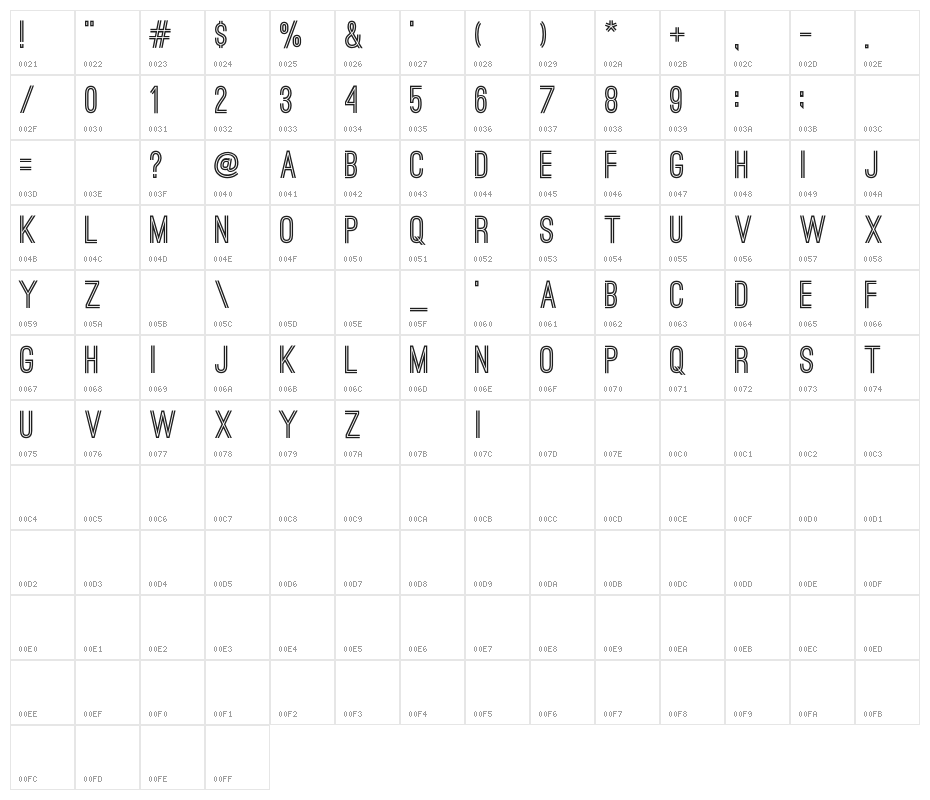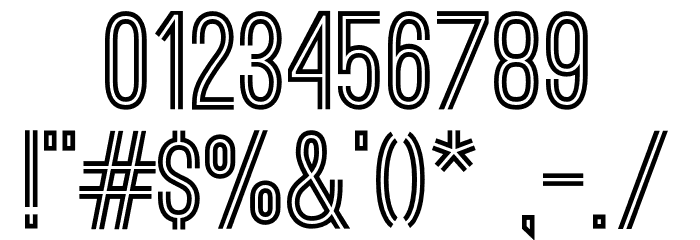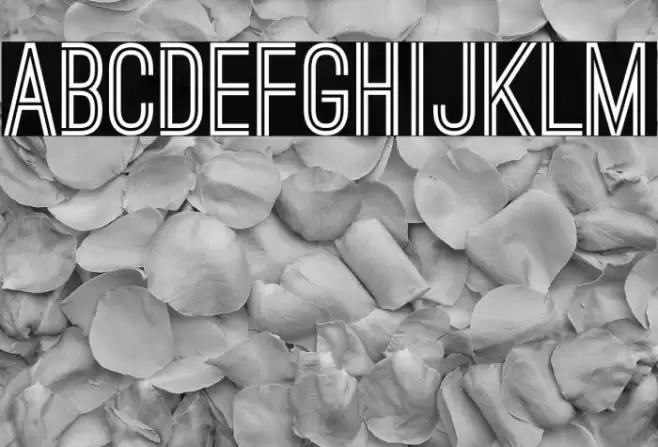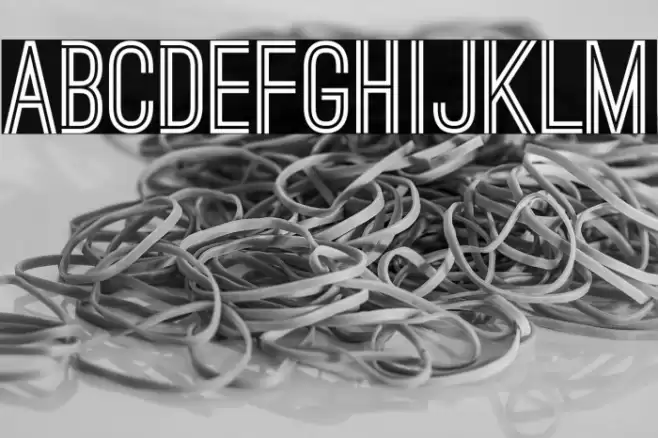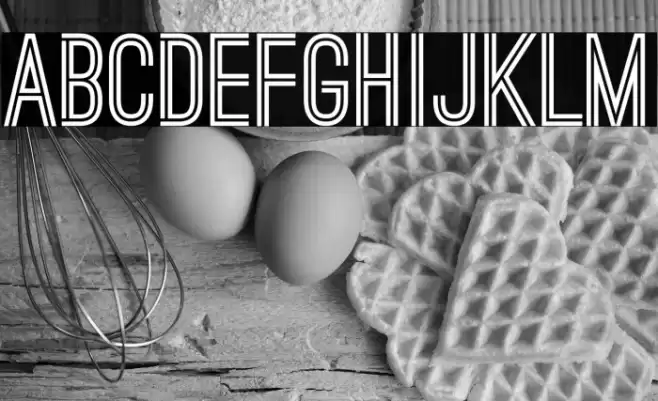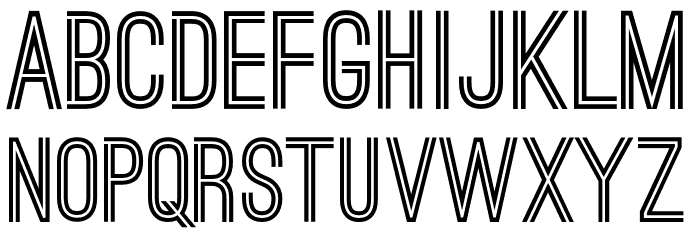
Ostrich Sans Bold Font
Ostrich Sans Bold Description
This font features a modern, geometric design with clean lines and a bold presence. The characters are constructed with a double-line style, creating a unique outline effect that adds depth and interest. The uppercase and lowercase letters maintain a consistent height, contributing to a uniform appearance. The numerals and special characters follow the same design principles, ensuring a cohesive look across all text elements. This font's open and airy design makes it highly legible, even at smaller sizes, while its boldness ensures it stands out in any context.
| Proposed Projects | Ideal for headlines, posters, branding, and any project requiring a modern and striking typeface. |